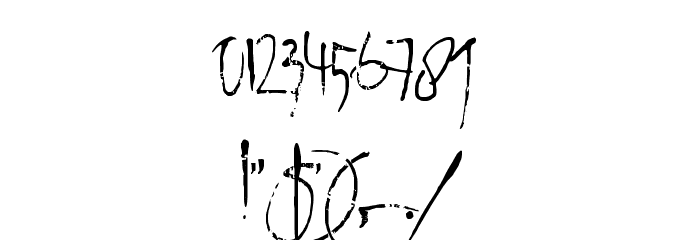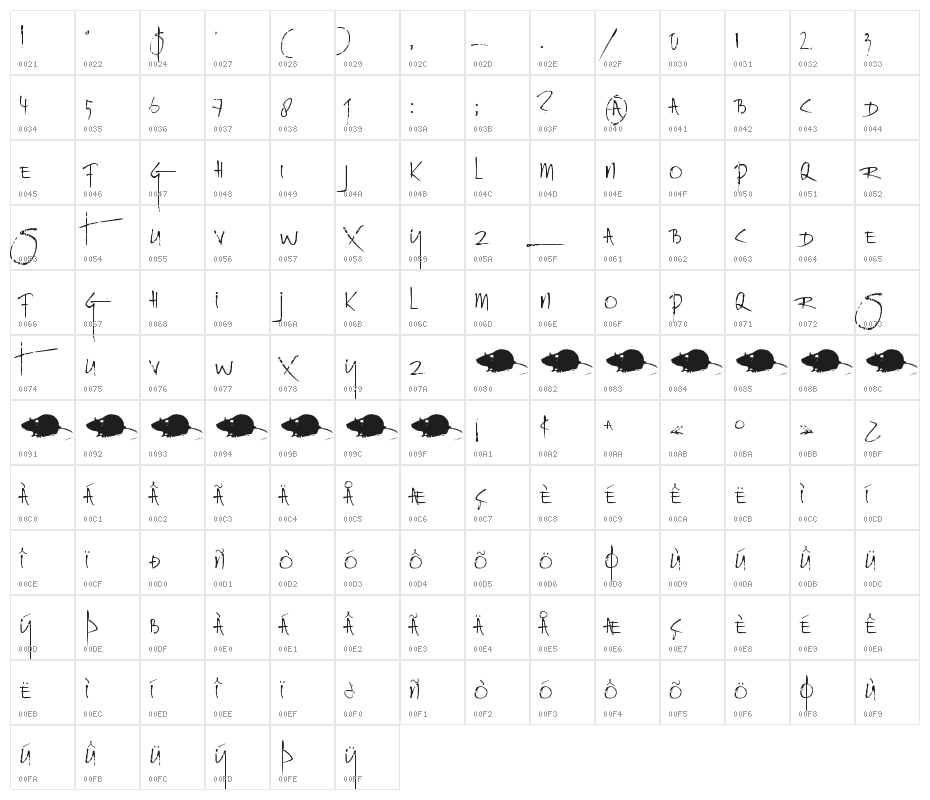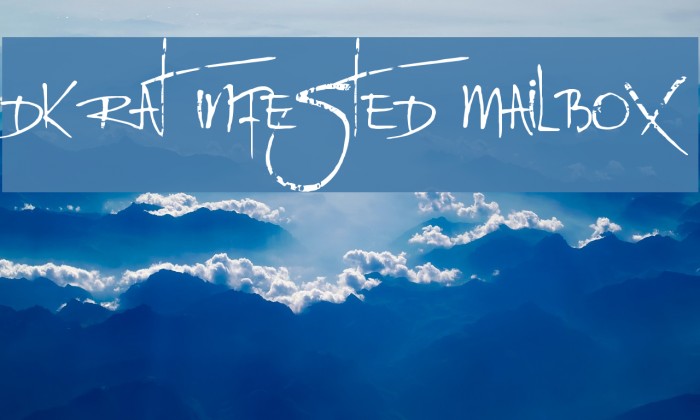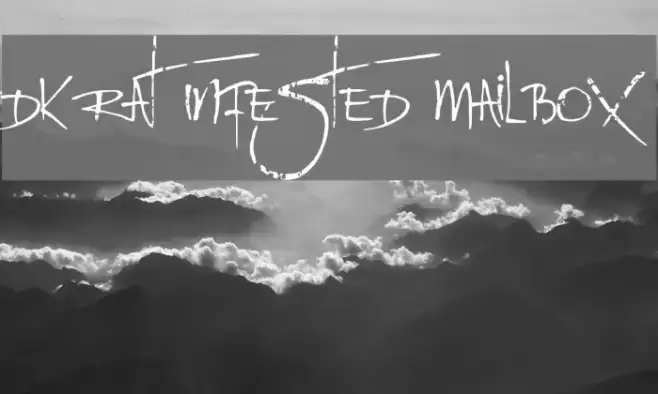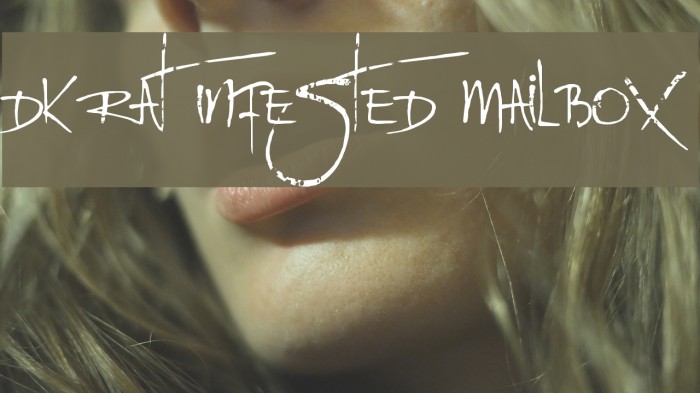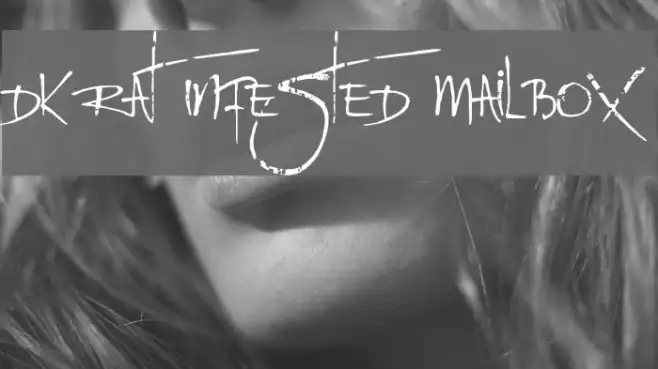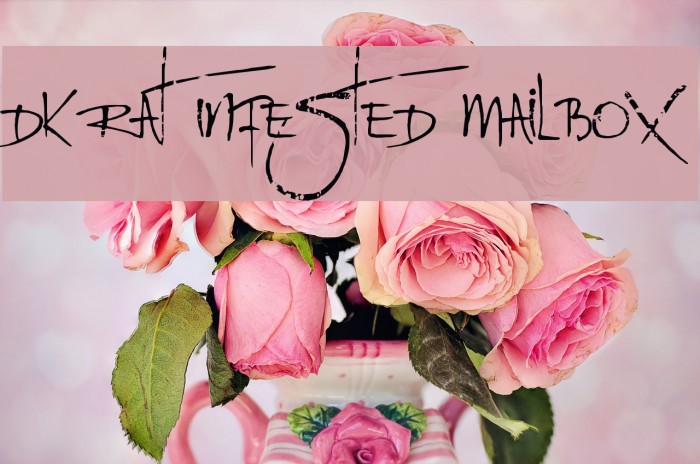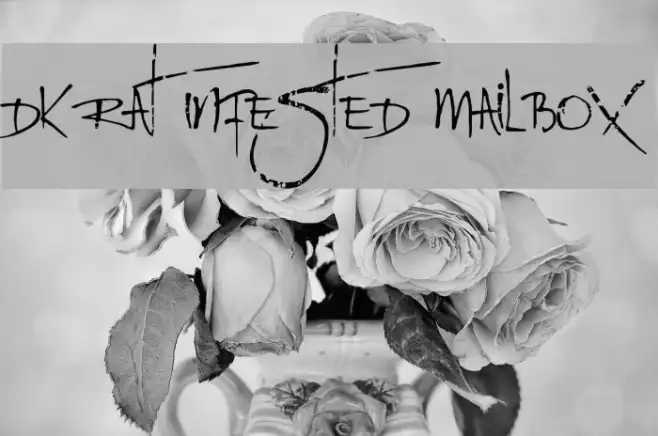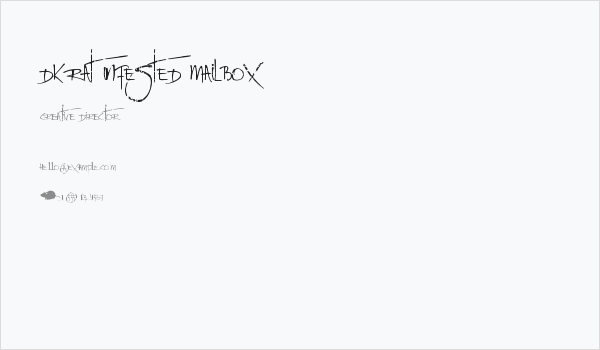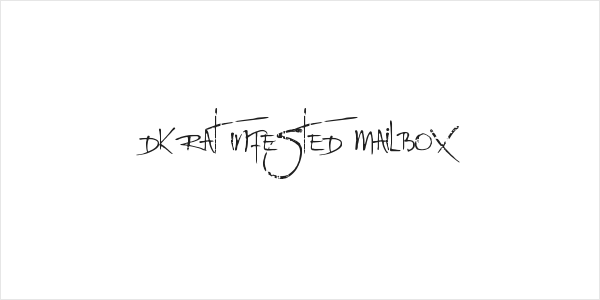
DK Rat Infested Mailbox Font
DK Rat Infested Mailbox Description
This font exudes a raw, edgy aesthetic with its distressed, graffiti-like appearance. The characters are irregular and feature a hand-drawn style, with strokes that vary in thickness, creating a dynamic and energetic feel. The uppercase and lowercase letters maintain a consistent style, while the numbers and special characters add to the chaotic yet artistic vibe. The overall look is reminiscent of urban street art, making it ideal for projects that require a bold, unconventional statement.
| Overall Style | Urban, Edgy, Artistic |
| Use Case | Logos, Posters, Album Covers |
| Proposed Projects | Ideal for album covers, streetwear branding, urban-themed posters, and edgy graphic design projects. |